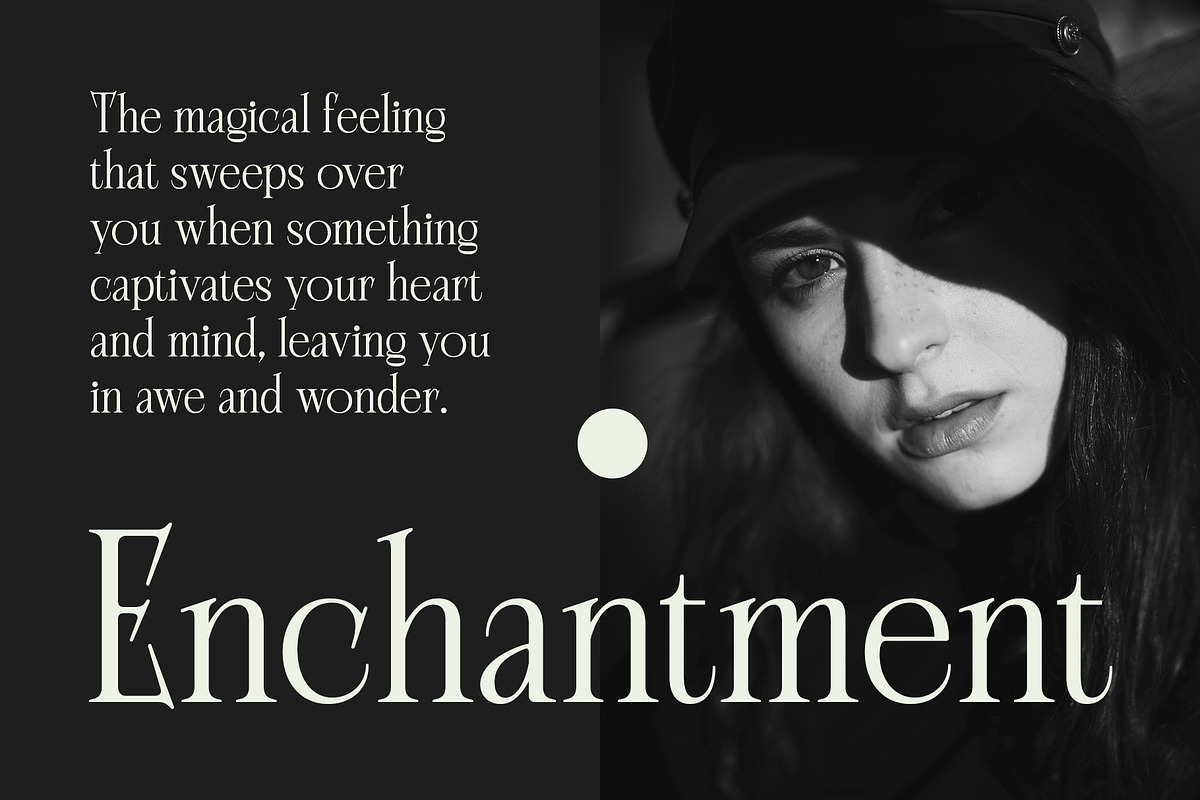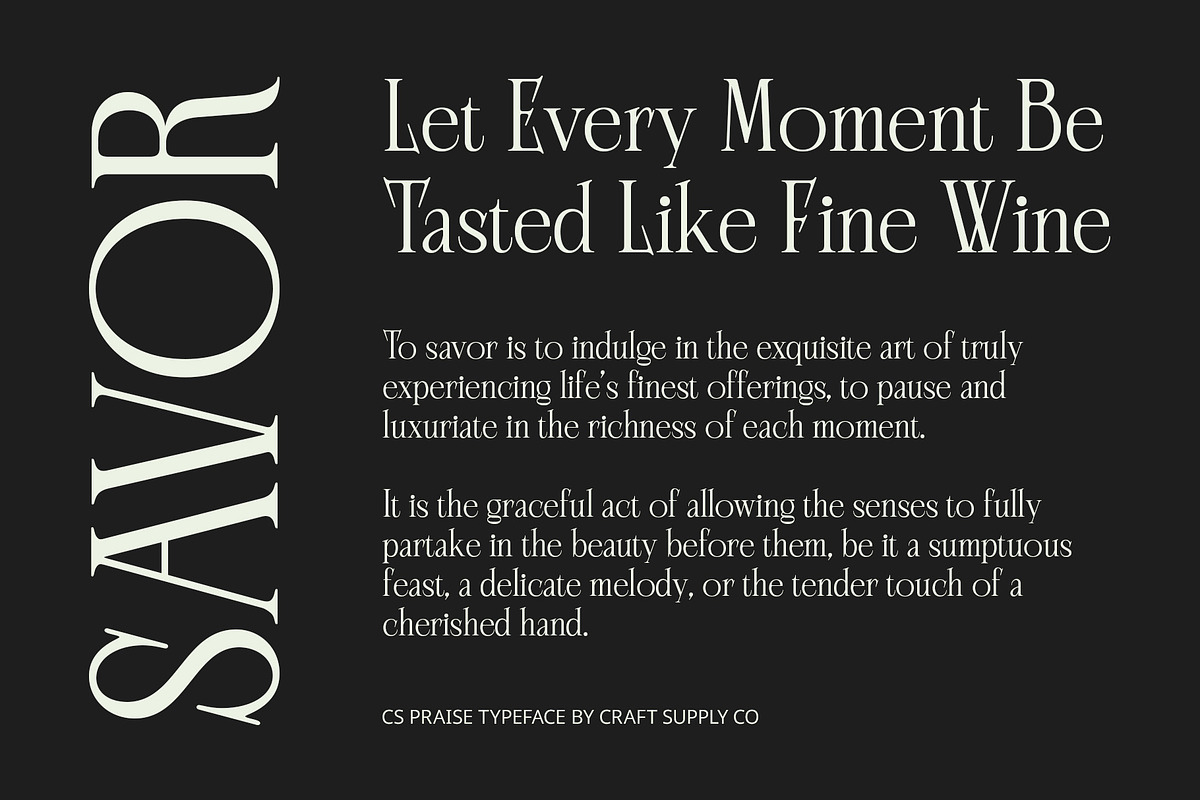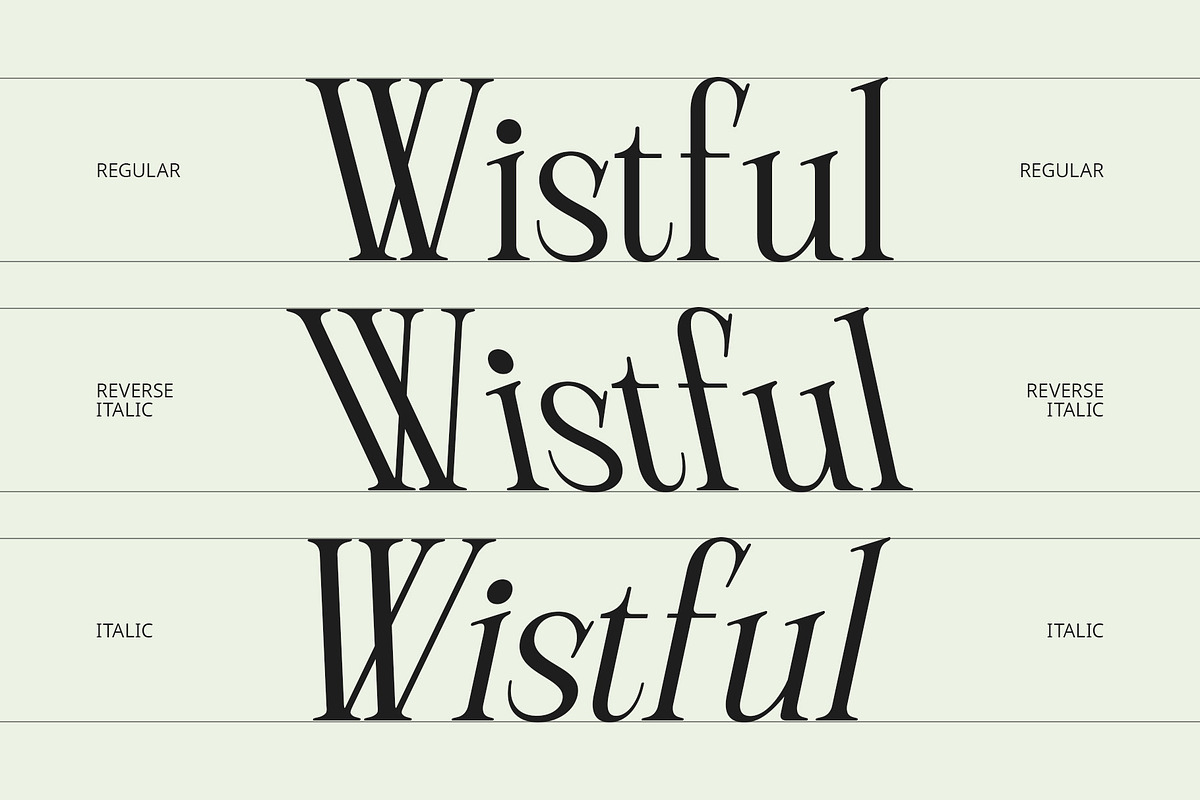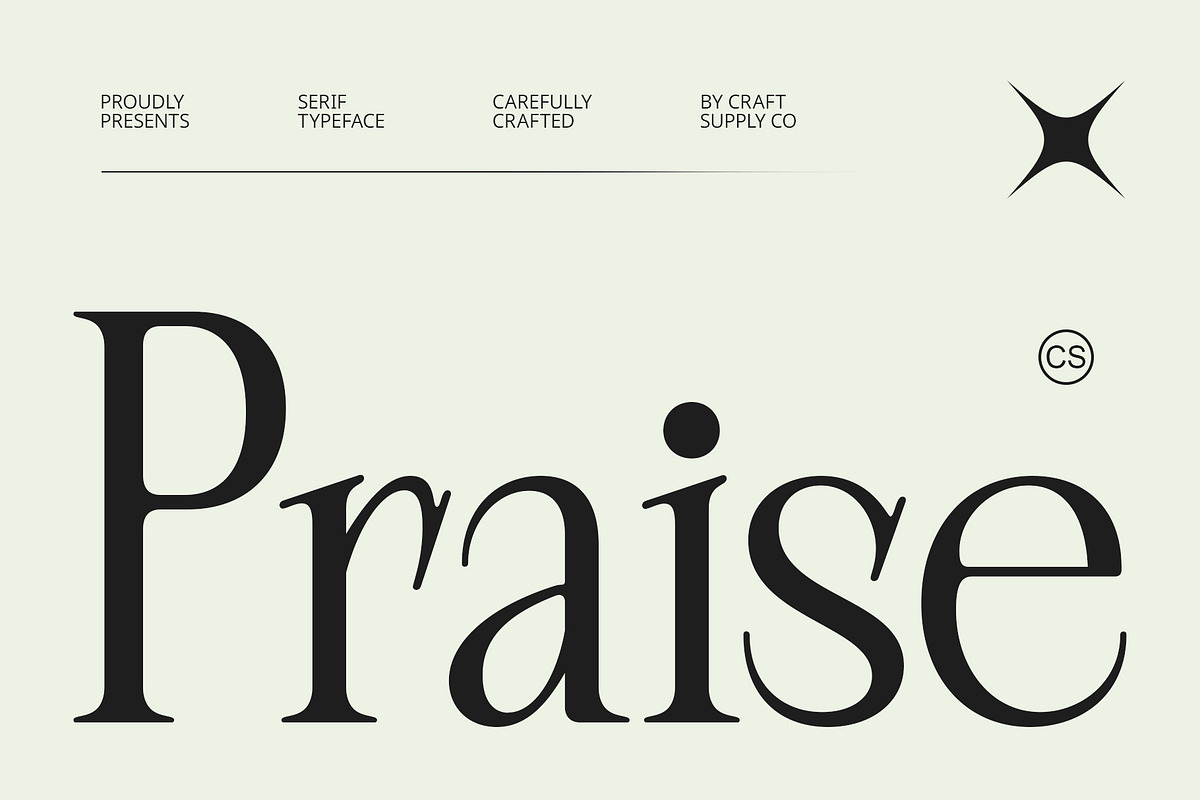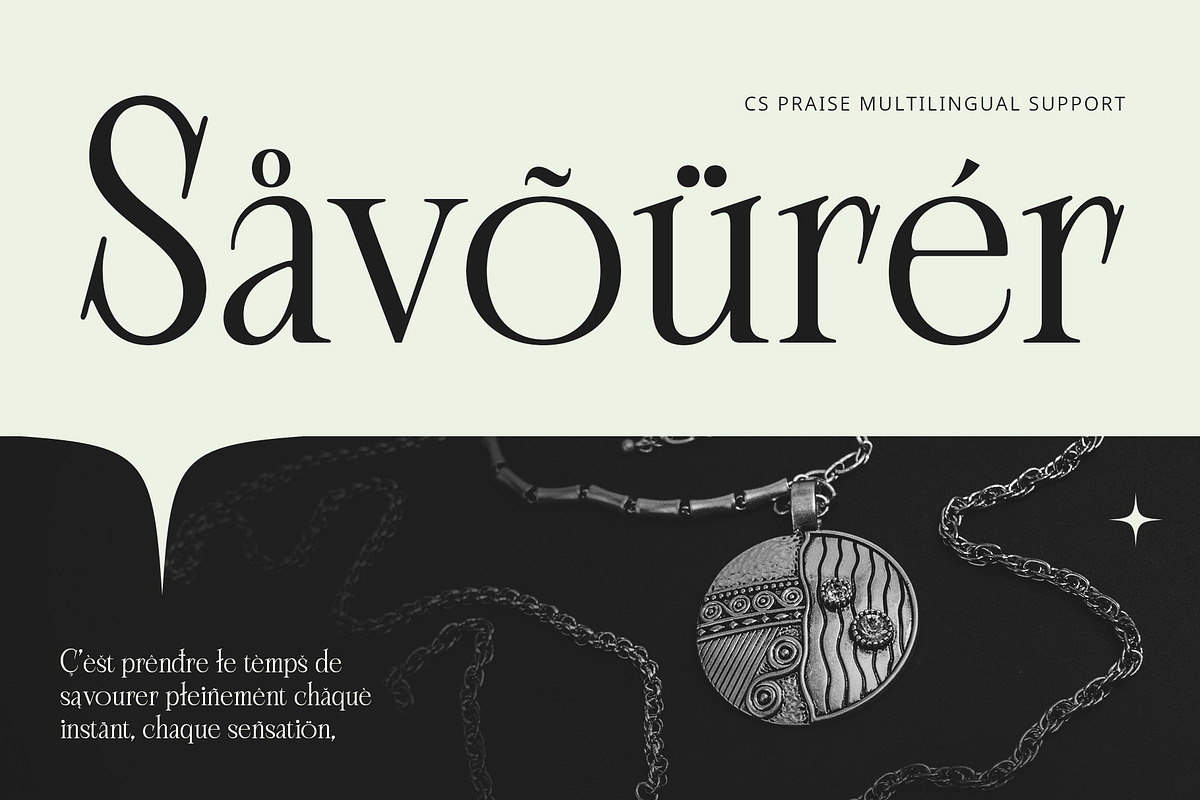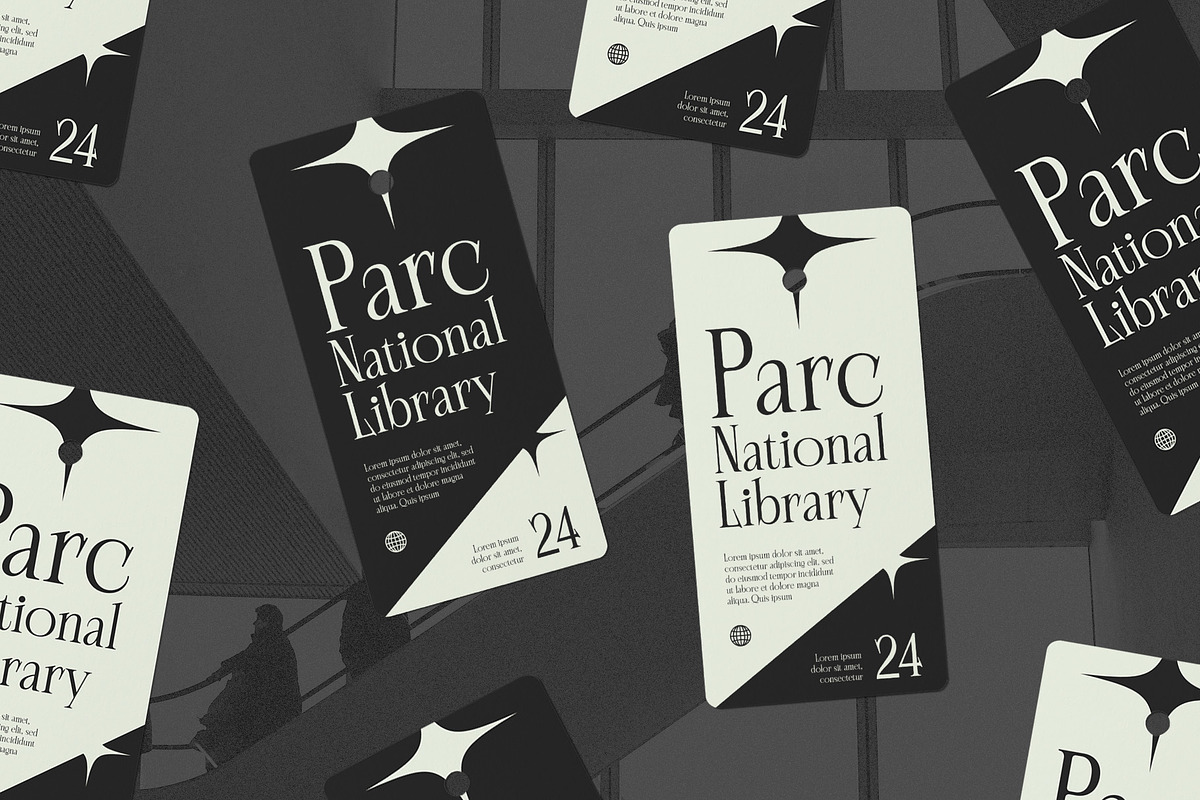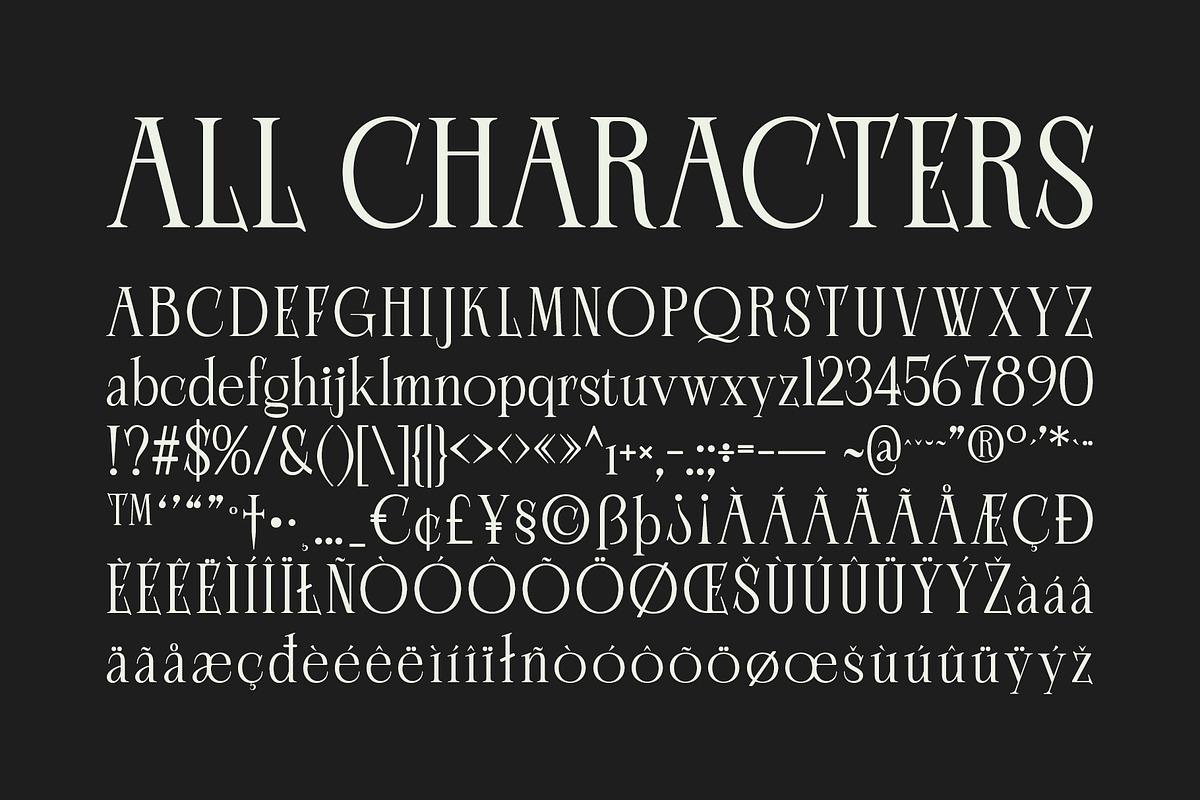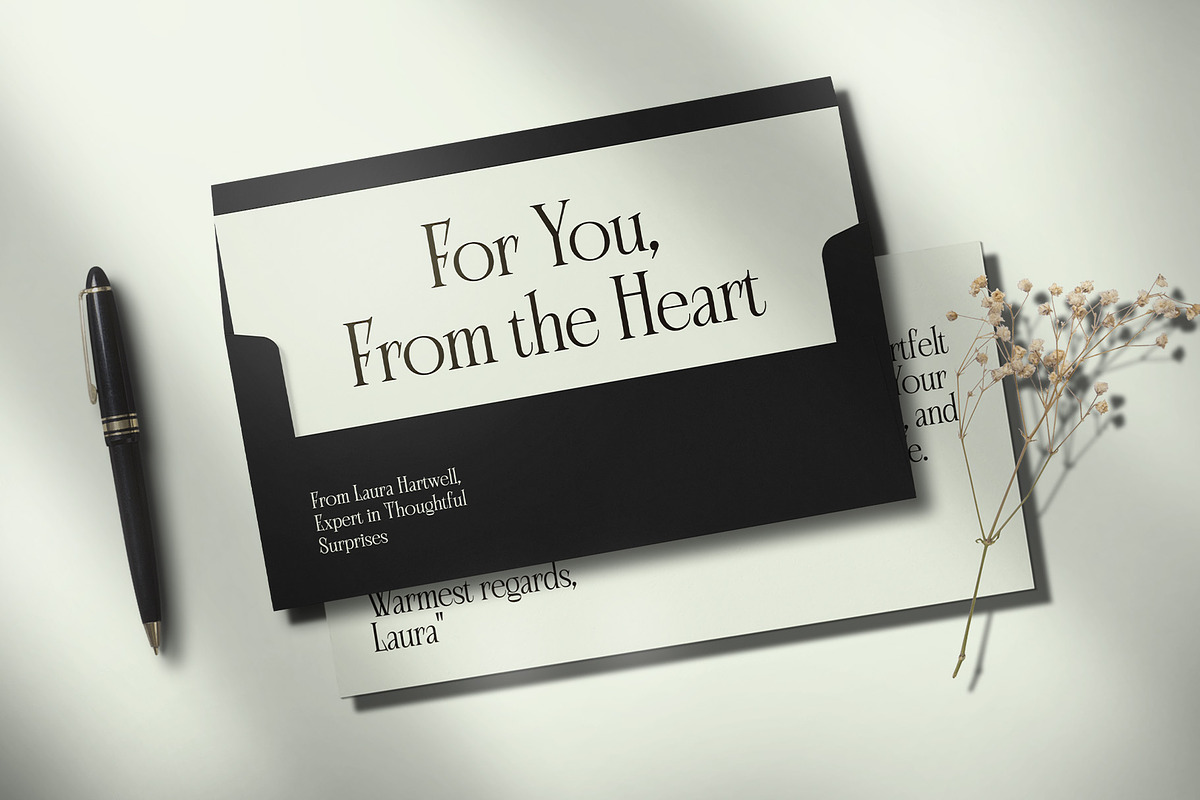
CS Praise – Elegant Font
CS Praise – Elegant Font: A Perfect Blend of Sophistication and Luxury
Modern Didone Serif with High Contrast CS Praise is a modern Didone serif font that features striking high contrast between thick and thin strokes, giving it a refined, bold presence. Its sleek, sharp serifs enhance its elegance and precision, making it the ideal choice for high-end designs that demand a sense of luxury and sophistication. The sharp, clean lines of this font offer a polished look, perfect for elevating any design with a touch of class.
Exuding Elegance and Luxury The clean, structured appearance of CS Praise exudes an air of refinement and exclusivity, making it a perfect fit for luxury branding, fashion, and upscale marketing. Its elegant curves and sharp details create a sense of timeless beauty, ensuring it stands out in sophisticated design contexts. Whether it’s for a luxury fashion brand, high-profile advertising, or premium promotional materials, this font brings an unmistakable sense of high-end glamour.
Perfect for Fashion Branding and Luxury Designs CS Praise is the ultimate font for fashion branding and luxury design projects. Its graceful structure and clean-cut lines make it ideal for fashion logos, high-end advertisements, editorial layouts, and more. The font balances artistic expression with professional precision, making it a versatile tool for any design that seeks to communicate prestige, elegance, and style.
- CS Praise Regular
- CS Praise Italic
- CS Praise Reverse Italic